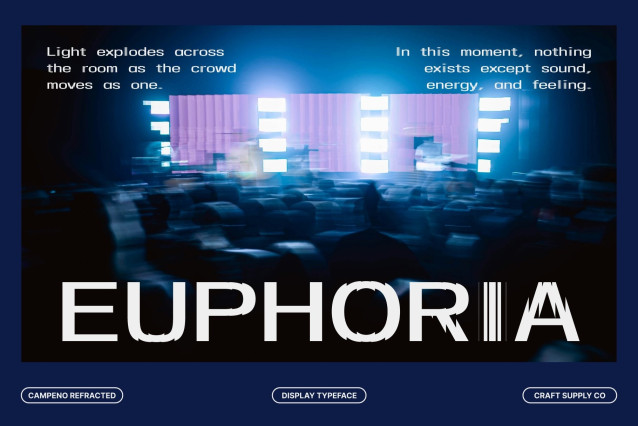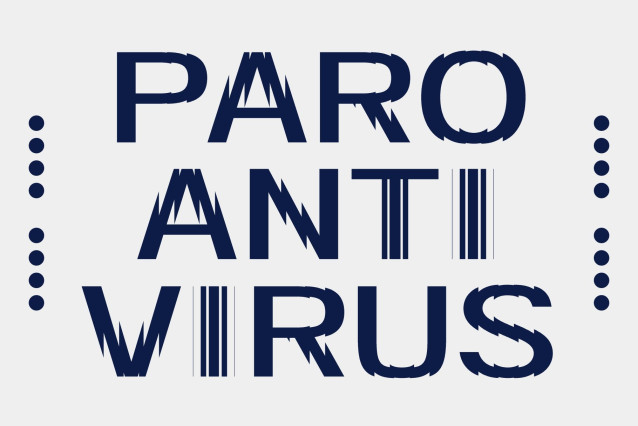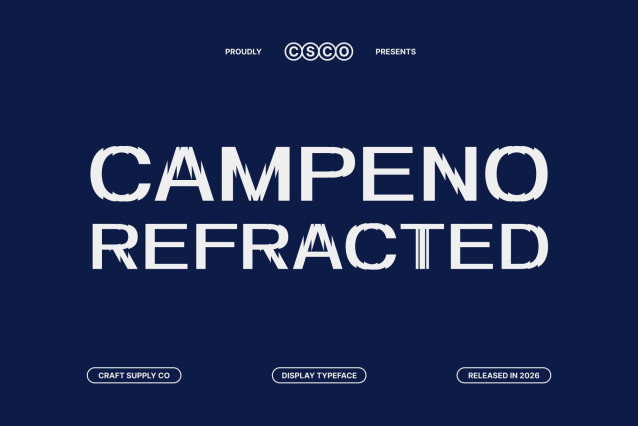
Campeno Refracted – Geometric Sans Serif Font: Precision Geometry with Futuristic Light Distortion
Pure Geometry Built for Modern Editorial Design
This is a geometric sans serif typeface designed to express clarity, order, and visual precision. Every character is constructed using strong geometric principles that create a structured and balanced appearance. This disciplined foundation gives the font a clean and contemporary personality.
Refracted Cuts for a Contemporary Visual Twist
The refracted styling introduces sharp geometric slices and light-reflection inspired distortions that elevate the classic geometric structure. These subtle cuts create a futuristic and experimental aesthetic while preserving legibility. The result is a modern typeface that feels both professional and forward-thinking, perfect for designers who want to combine clarity with visual innovation.